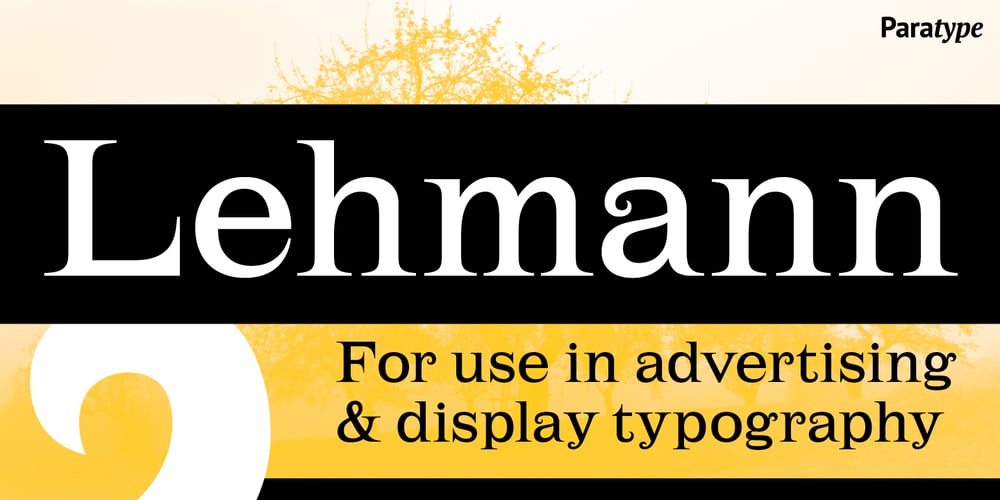
Lehmann
Lehmann font
Lehmann Font Family was designed by Tagir Safayev and published by ParaType. Lehmann contains 1 styles and family package options. PT Lehmann™ was designed for ParaType in 2002 by Tagir Safayev. Inspired by letterforms of Shiroky (Wide) Renaissance typeface and other fonts of Ossip Lehmann foundry, St.-Petersburg, c. 1874. A face of the so-called Elzevir type has thin triangular serifs and sharp spiral-like terminals. For use in advertising and display typography.